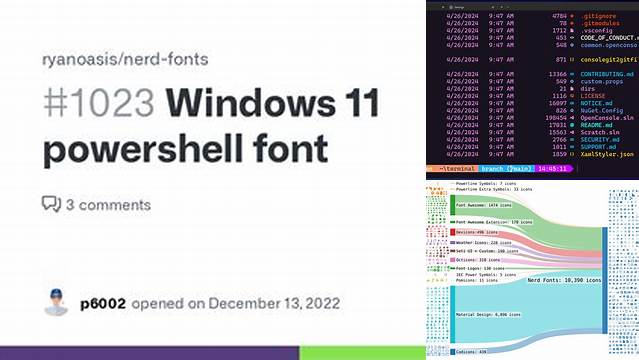
Nerd Fonts: Windows PowerShell Guide With Cool Icons
Are you looking to spice up your Windows PowerShell terminal with cool icons and symbols? Well, you've come to the right place! In this comprehensive guide, we'll dive deep into the world of Nerd Fonts and show you how to get them working seamlessly with your PowerShell environment. Trust me, once you see those fancy glyphs, you'll never want to go back!
What are Nerd Fonts?
Let's kick things off by understanding what Nerd Fonts actually are. Nerd Fonts are basically patched fonts that include a massive set of glyphs (icons, symbols, etc.) from popular icon sets like Font Awesome, Devicons, Octicons, and many more. These fonts are designed to enhance the look and feel of your terminal, making it easier to visualize information and add a touch of personalization. Think of it as giving your command line a stylish makeover!
The beauty of Nerd Fonts lies in their ability to transform your mundane terminal into a visually appealing and informative interface. Imagine being able to see Git branch icons, file type symbols, and even cute little emojis right in your PowerShell prompt. It’s not just about aesthetics; it’s about making your workflow more efficient and enjoyable. For instance, when you are working with different programming languages, you can immediately identify the file type by the icon next to the file name. This visual cue can save you time and reduce the cognitive load, especially when dealing with a large number of files. Furthermore, Nerd Fonts can be integrated into your terminal-based applications like text editors (Vim, Emacs) and status bars, providing a consistent and visually rich experience across your entire development environment. In essence, Nerd Fonts bridge the gap between functionality and aesthetics, making your terminal not just a tool, but also a canvas for personal expression and improved productivity.
Why Use Nerd Fonts with PowerShell?
Now, why should you bother using Nerd Fonts with PowerShell? PowerShell is a powerful scripting and automation tool, but let's be honest, its default appearance can be a bit bland. Nerd Fonts inject some much-needed personality into your PowerShell prompt, making it more engaging and fun to use.
Moreover, Nerd Fonts enhance the readability and comprehension of your terminal output. With icons representing different commands, file types, and statuses, you can quickly grasp the information displayed without having to parse through lengthy text. This is particularly useful when dealing with complex scripts or large datasets. For example, imagine you're running a script that interacts with various files and directories. With Nerd Fonts, you can instantly see which files are being modified, which directories are being accessed, and whether any errors have occurred, all through intuitive icons. This visual feedback loop allows you to monitor the script's progress and troubleshoot any issues more efficiently. Furthermore, Nerd Fonts can be used to create custom prompts that display relevant information such as the current Git branch, the status of your virtual environment, or the system's resource usage. These personalized prompts not only look cool but also provide valuable context that can streamline your workflow and boost your productivity. In short, Nerd Fonts transform your PowerShell terminal from a basic command-line interface into a dynamic and informative dashboard.
- Navigate to the Font Tab: In the Properties window, click on the "Font" tab.
- Choose Your Nerd Font: In the Font section, select the Nerd Font you installed from the dropdown menu. Make sure the font size is appropriate for your screen resolution. I usually go with something between 14 and 16.
- Set the Raster Font: If you don't see the font, you may need to disable "Use only raster fonts".
- Apply the Changes: Click "OK" to apply the changes. You might need to restart PowerShell for the changes to take effect.
Voila! Your PowerShell terminal should now be rocking the Nerd Font you selected. If you see weird characters or boxes instead of icons, don't panic! We'll address that in the troubleshooting section.
Customizing Your PowerShell Prompt with Posh-Git and Oh-My-Posh
To truly unleash the power of Nerd Fonts in PowerShell, you'll want to customize your prompt with tools like Posh-Git and Oh-My-Posh. These modules allow you to display Git status, system information, and other useful details in your prompt, all adorned with beautiful Nerd Font icons.
Posh-Git
Posh-Git is a PowerShell module that integrates Git information into your prompt. It shows you the current branch, the status of your working directory, and other Git-related details. Here’s how to install and configure it:
Nerd Fonts can breathe new life into your PowerShell terminal, making it more visually appealing and informative. By following this guide, you should now have a fully customized PowerShell environment with beautiful icons and a personalized prompt. So go ahead, experiment with different fonts, themes, and configurations, and make your terminal your own!